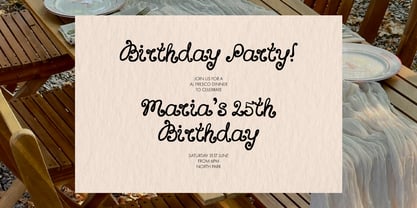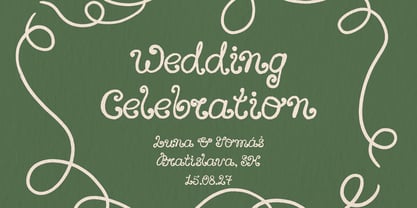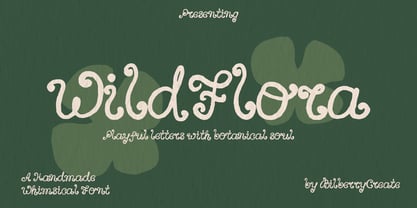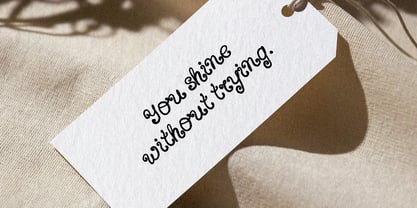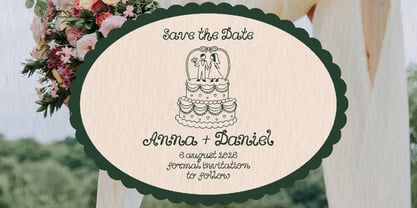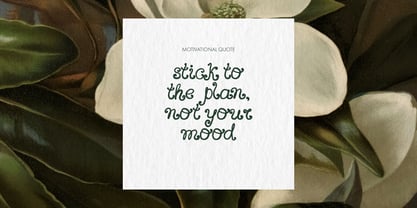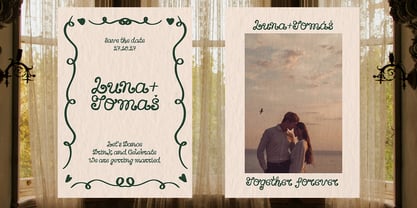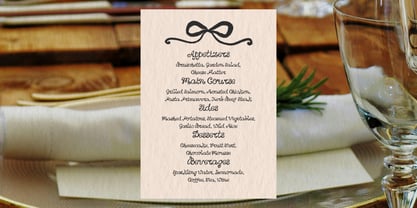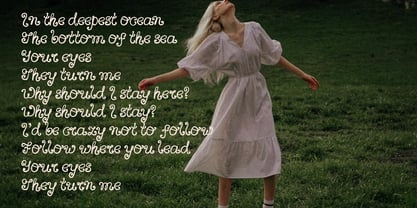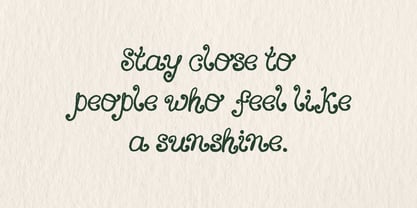
Wild Flora
The Wild Flora Font Family was designed by Daria Cherniackova and published by Bilberry Create. Wild Flora contains 1 styles. More about this family
WildFlora is a whimsical handmade typeface inspired by soft botanical shapes and natural, flowing forms. Each letter feels like it was drawn by hand, with gentle curls and organic curves that echo leaves, petals, and forest vines. The result is a warm, friendly font full of personality and artistic charm. Perfect for: natural cosmetic packaging logos and branding with an earthy or organic feel posters, greeting cards & stationery wedding invitations and seasonal designs DIY projects, magazines, scrapbooking social media graphics & Instagram posts What’s Included: Full set of uppercase and lowercase letters Numbers & basic punctuation Smooth, organic strokes with a playful botanical spirit WildFlora brings a touch of forest magic to your creative projects - soft, lively, and full of handmade character.